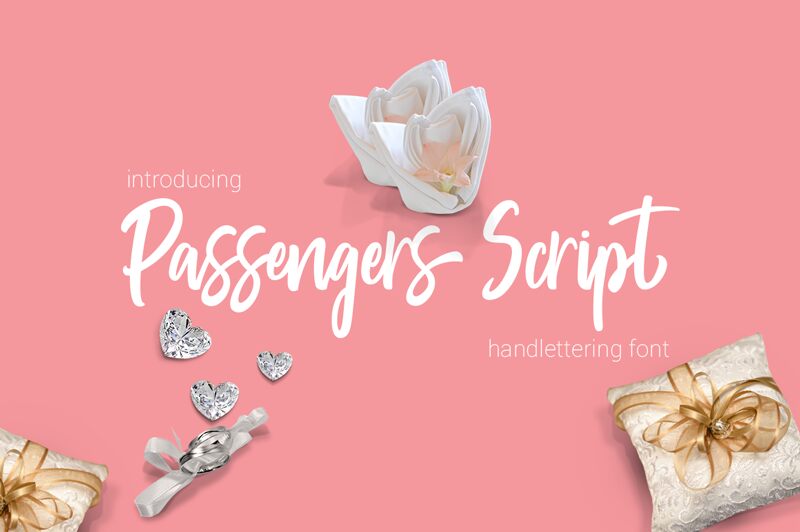
Swash Passengers is a captivating brush script font that exudes elegance and sophistication. Crafted by the skilled designers at Pathero Studio, this font boasts a harmonious blend of fluid lines and graceful movements, creating an alluring calligraphic aesthetic.
The Swash Passengers script's distinctive flourishes and varied character widths lend an artful, handwritten quality to any design, making it a versatile choice for a wide range of applications, from wedding invitations and product packaging to editorial layouts and branding projects.
Its charming, yet refined, personality effortlessly elevates the visual appeal of any design, captivating audiences with its timeless appeal.